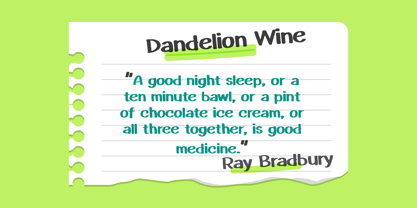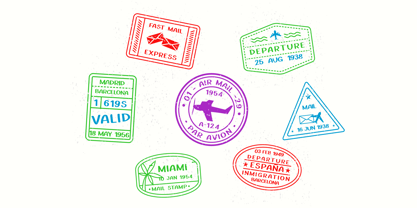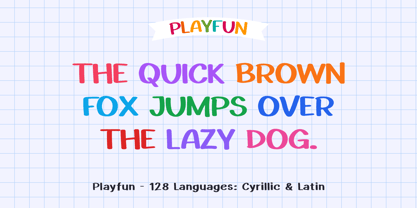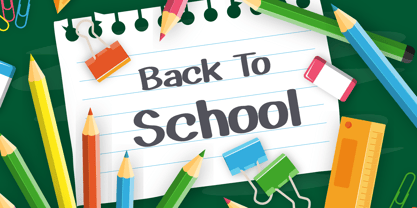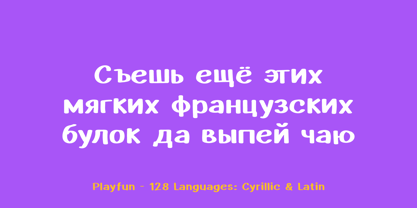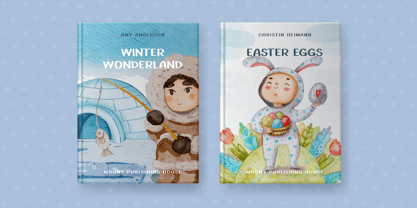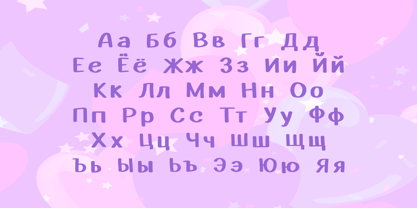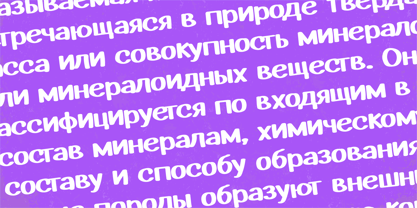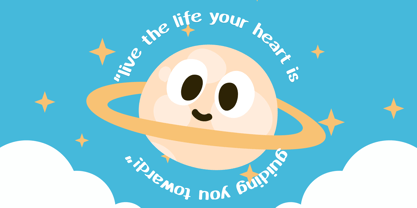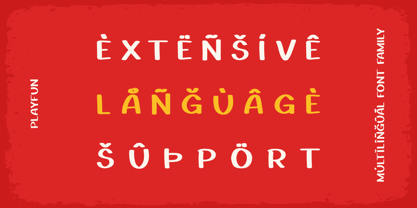
Playfun
by AlperCakici
The Playfun Font Family was designed by Alper Çakıcı and published by AlperCakici. Playfun contains 52 styles and family package options. More about this family
Playfun is a lively handwritten typeface designed to bring warmth, personality, and charm to any project. With its whimsical character and expressive letterforms, Playfun captures the spontaneity of natural handwriting while maintaining clarity and versatility across a wide range of uses. The family offers an extensive set of styles, from clean and smooth to textured and playful. Variants such as Angular, Brush, Pencil, Rough, Rimmed, Eroded, Outline, and Noise provide a rich toolkit for creative exploration. The Circular and Rounded subfamilies add softer, friendlier tones, while Italic counterparts enhance motion and dynamism. Playfun is ideal for branding, children’s products, packaging, social media graphics, posters, invitations, and editorial headlines. Its wide stylistic range allows designers to mix and match moods—from casual and fun to bold and expressive—within a cohesive visual identity. Supporting a broad spectrum of Latin-based languages, Playfun ensures accessibility and usability across global audiences. Whether you're crafting playful logos or eye-catching typography, Playfun delivers creativity with consistency.